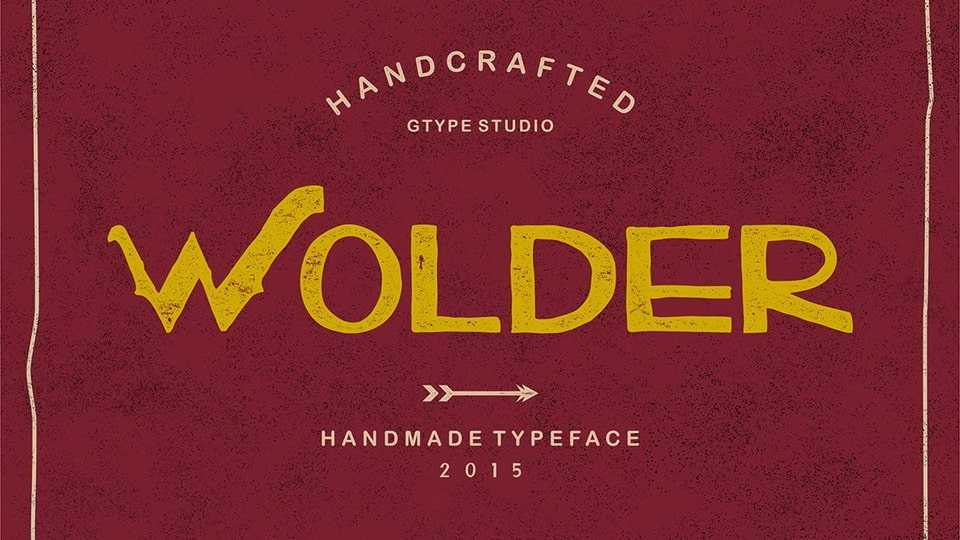
Download Wolder font, a vintage, old-fashioned, and elegant display typeface. This font is good for vintage designs, t-shirts, logos, labels, book covers, posters, etc.